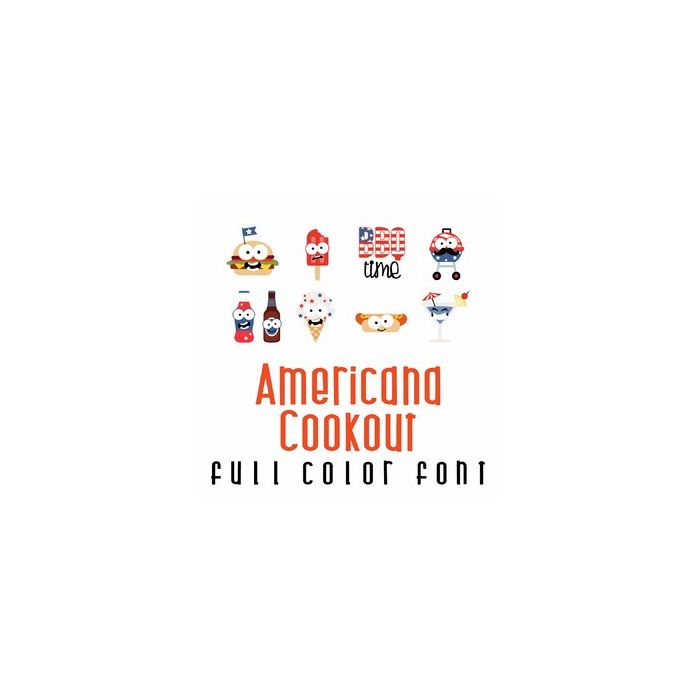
This adorable full-color doodlebat font features 26 american cookout items, Perfect for cards, crafts, gifts, decor, scrapbook pages, planner stickers, and more!